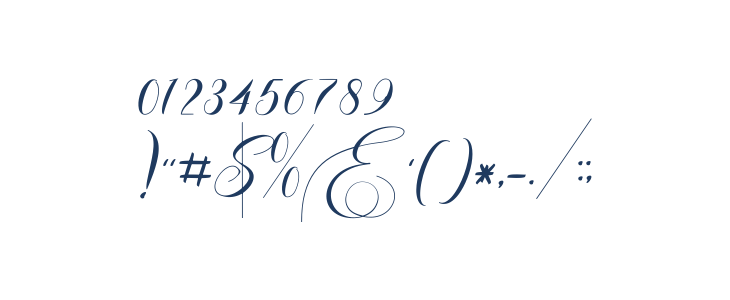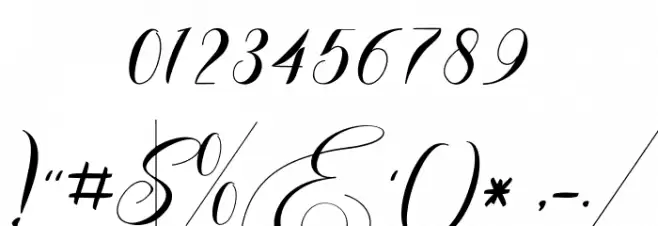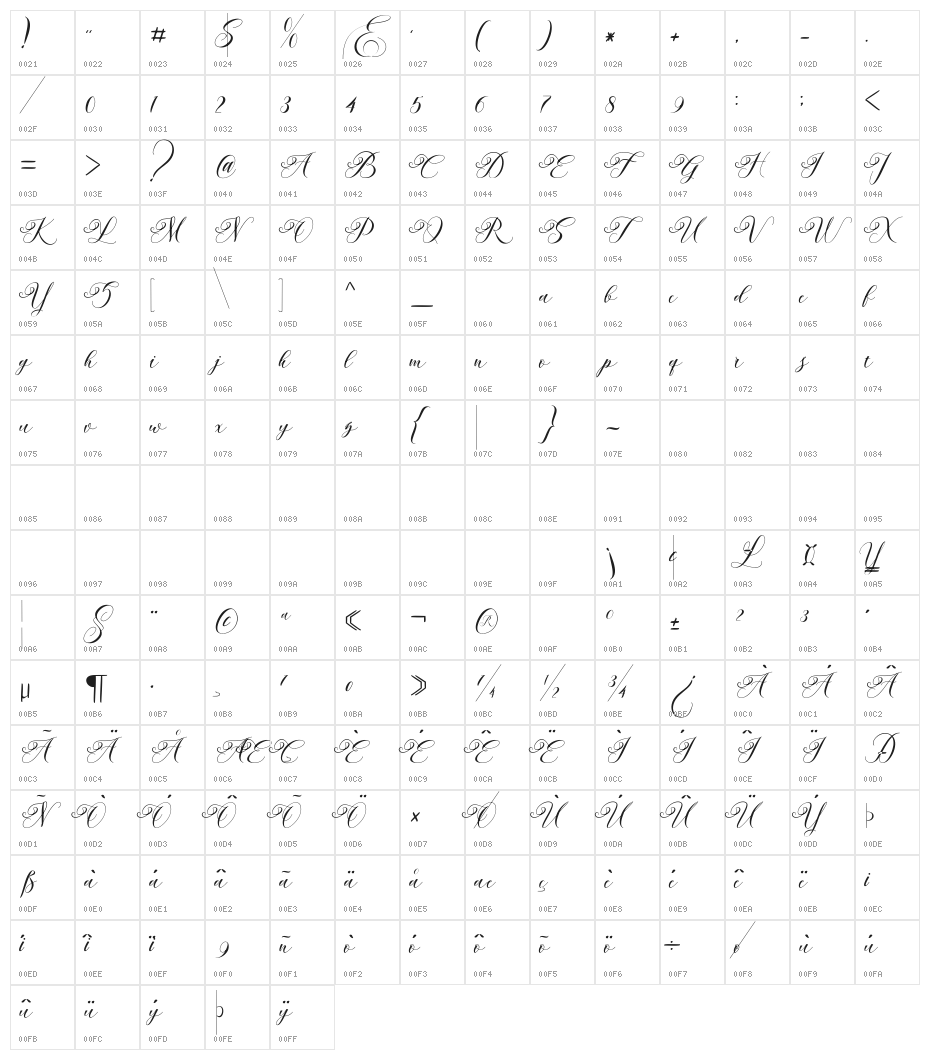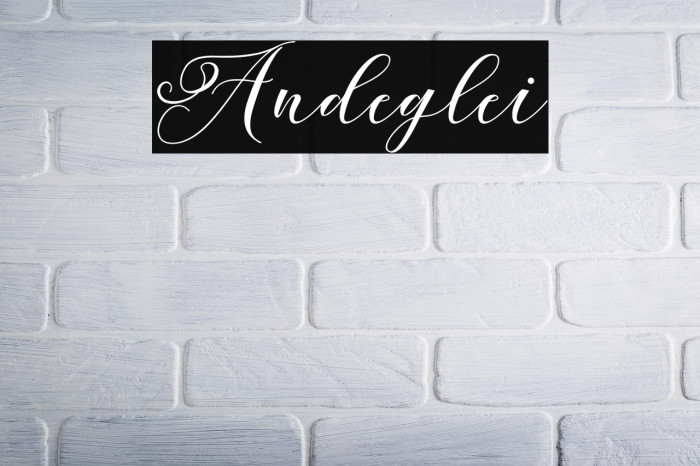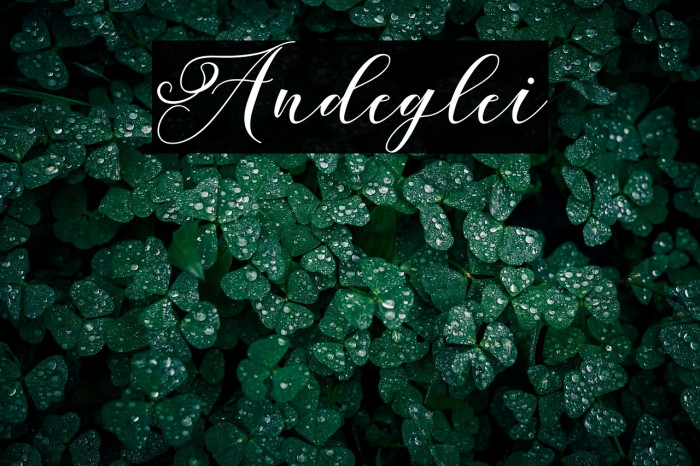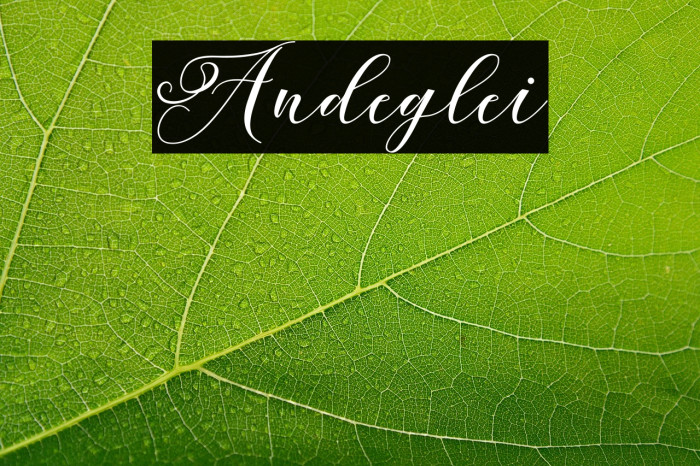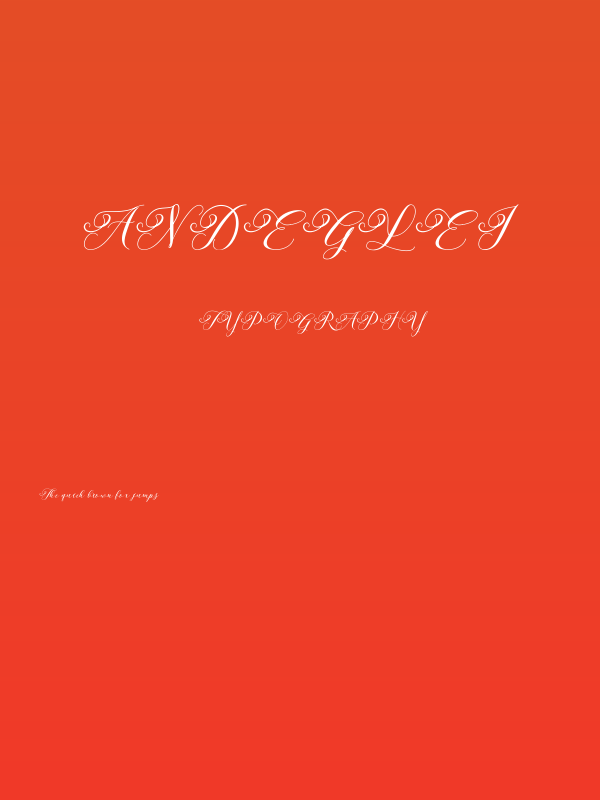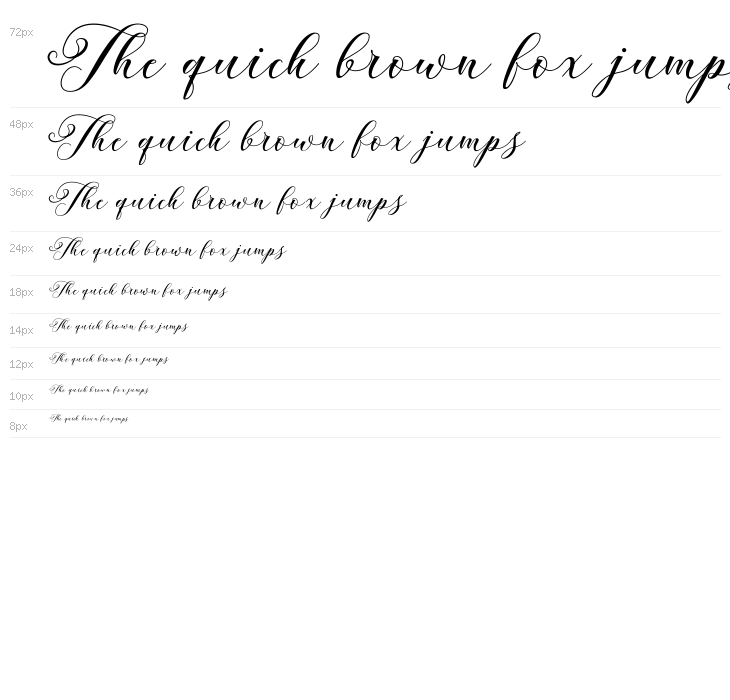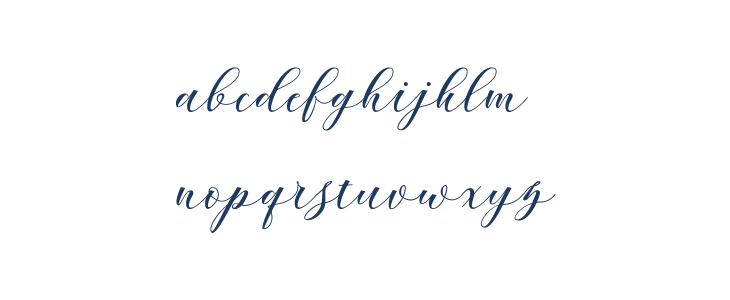
Andeglei Font
Andeglei Description
This elegant script font features intricate, flowing lines and ornate flourishes that give it a sophisticated and artistic appearance. The uppercase letters are adorned with elaborate swirls, while the lowercase letters maintain a graceful, cursive style. The numerals are clear and stylish, complementing the overall design. Special characters are crafted with the same attention to detail, making this font suitable for decorative purposes. Its high contrast in stroke thickness adds to its visual appeal, creating a dynamic and engaging look. This font is perfect for projects that require a touch of elegance and refinement.